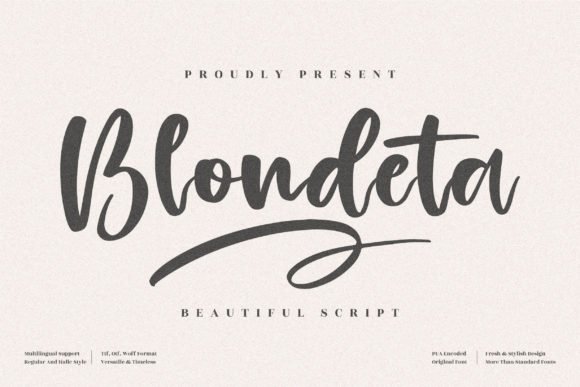
Have you ever found yourself staring at a blank canvas, searching for the perfect spark to ignite your creativity? You’re not alone. For many designers, it’s the moment when inspiration strikes and the ideas start flowing that we feel truly alive. And what better way to capture that feeling than with a font that embodies playfulness and charm?
Enter the Blondeta Font, a delightful script font that brings a smile to your face and a spring to your step. With its endearing characters and effortless flow, Blondeta Font is the perfect companion for your most creative endeavors. Whether you’re designing a wedding invitation, a children’s book, or a social media campaign, this font is sure to elevate your work and make it stand out from the crowd.
Blondeta Font Key Features
- Unique Characteristics: Blondeta Font features a unique blend of modern and vintage elements, with elegant lines, subtle flourishes, and a touch of sophistication.
Blondeta Font Review
Overall, I’m really impressed with the Blondeta Font. It’s a beautifully crafted, elegant script font that’s perfect for creating a sophisticated and luxurious look in your designs.
- Unique and elegant script style that’s perfect for luxury brands or high-end designs.
- Excellent legibility, even at smaller font sizes.
- Wide range of language support, making it a great choice for international designs.
- Works well in both digital and print designs.
- Not as versatile as some other script fonts, may not be suitable for more playful or casual designs.
- Lacks a bold or condensed weight, which may limit its use in certain design contexts.
- Some users may find the font too ornate or distracting, especially in large blocks of text.
In conclusion, the Blondeta Font is a stunning addition to any designer’s toolkit. While it may have some limitations, its unique style and excellent legibility make it a great choice for a wide range of design projects. I highly recommend giving it a try and seeing how it can elevate your designs!
Practical Application Guide for Blondeta Font
Getting the Most Out of Blondeta Font
For optimal results, use Blondeta Font in conjunction with high-quality images and graphics. Experiment with different font sizes, colors, and styles to create a visually appealing design. Consider using Blondeta Font for headings and titles to add a touch of elegance and sophistication.
Blondeta Font is ideal for creative projects, such as wedding invitations, event flyers, and marketing materials. It’s also suitable for personal branding, including business cards, logos, and social media graphics. Use Blondeta Font to add a touch of sophistication and elegance to your designs.